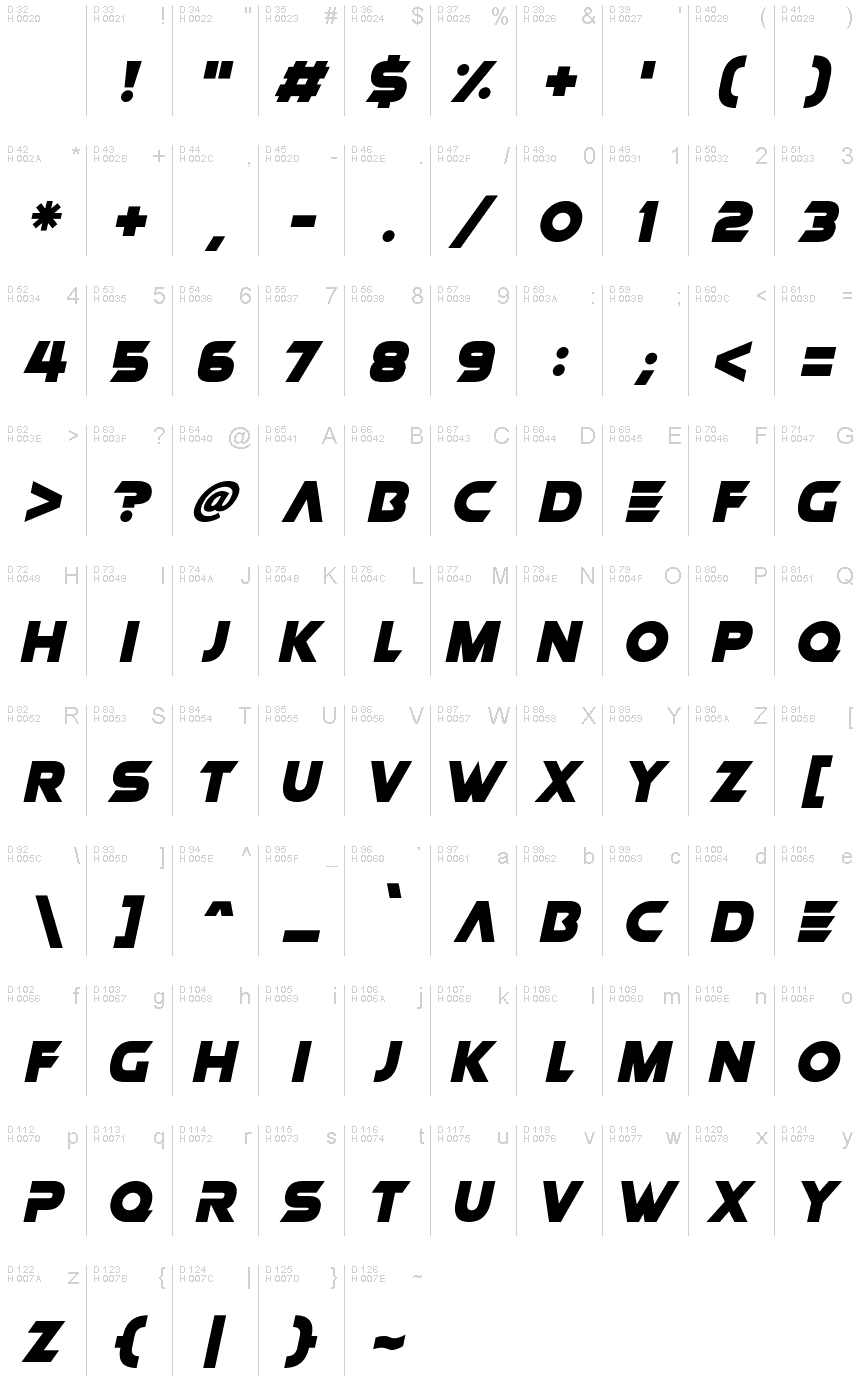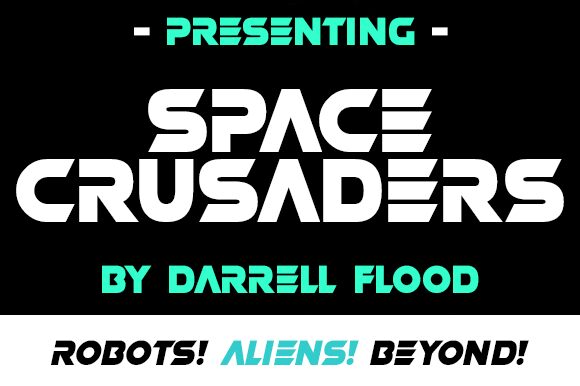
Space Crusaders Italic
Embark on an intergalactic journey with Space Crusaders Italic! Designed by Darrell Flood, this display font boasts a futuristic style that's perfect for projects related to sci-fi, gaming, and technology. The extra-bold weight and expanded width lend to its strong and commanding presence. Use it for titles, headings, logos or anything that requires a bold statement. Whether you're creating a video game cover, movie poster or technology blog header, Space Crusaders Italic will take your project to new heights!